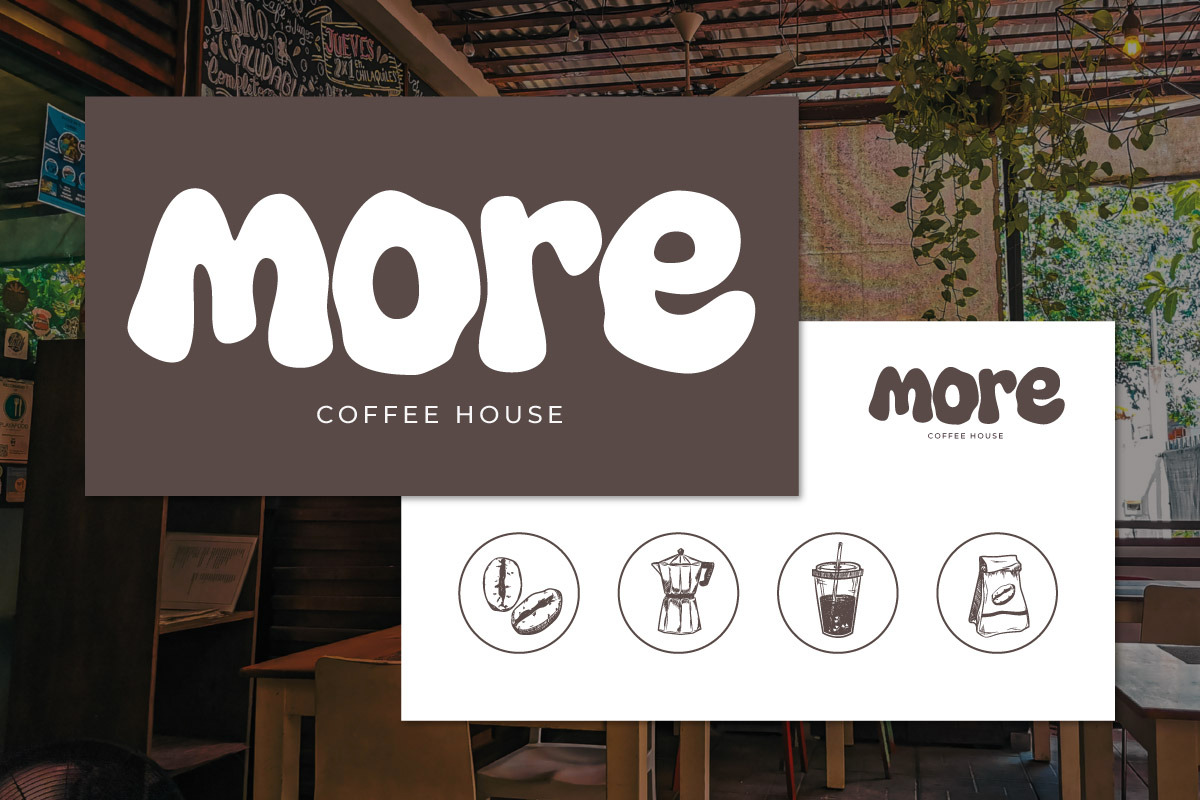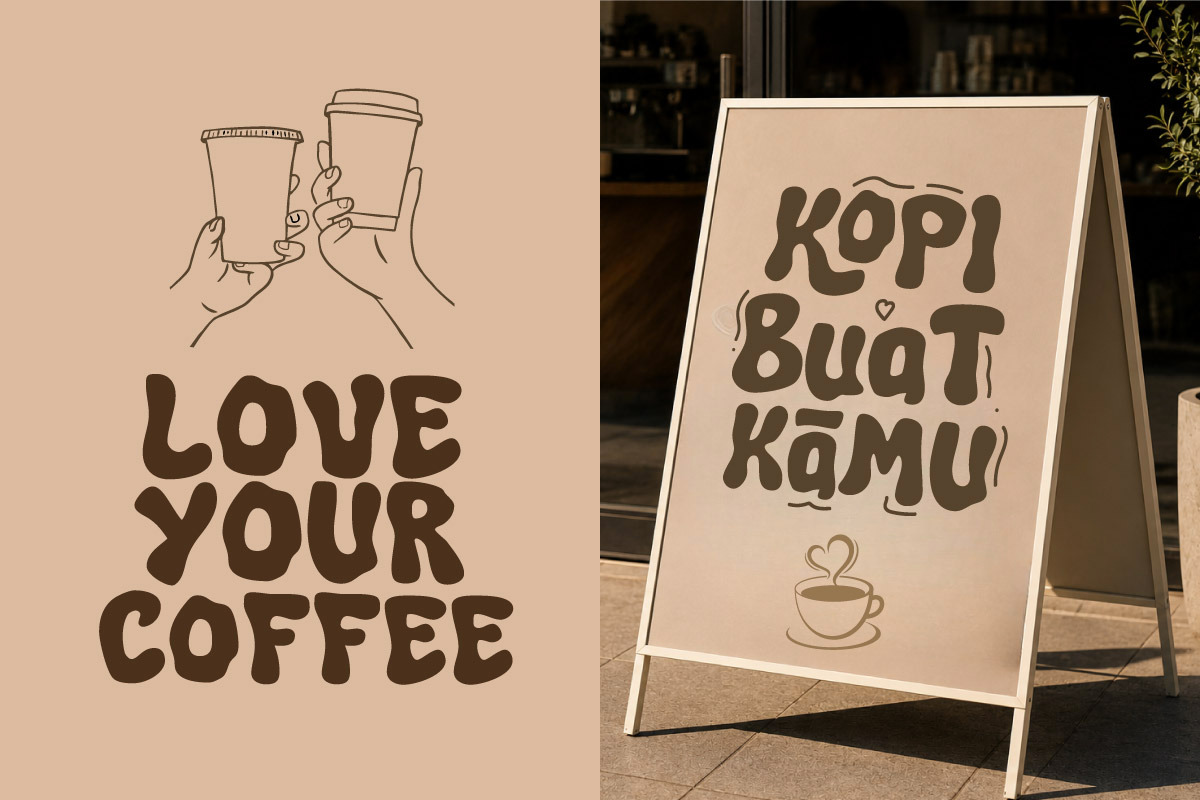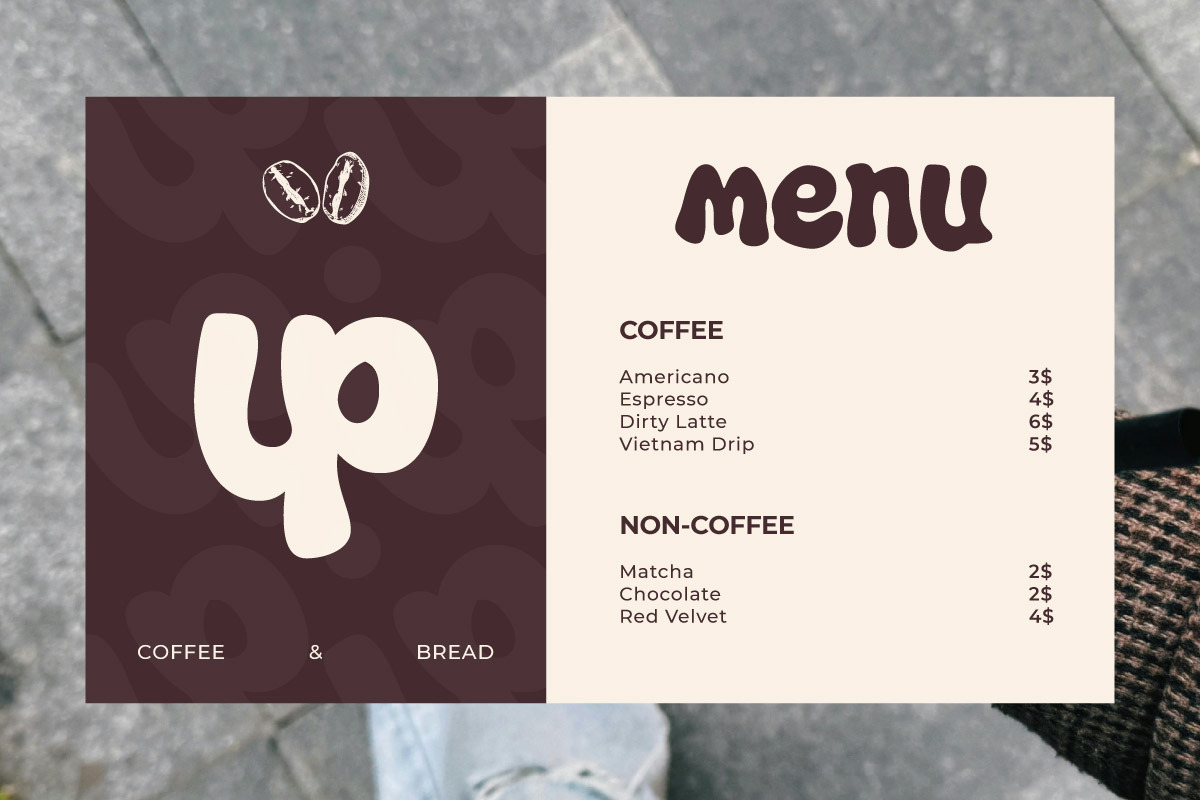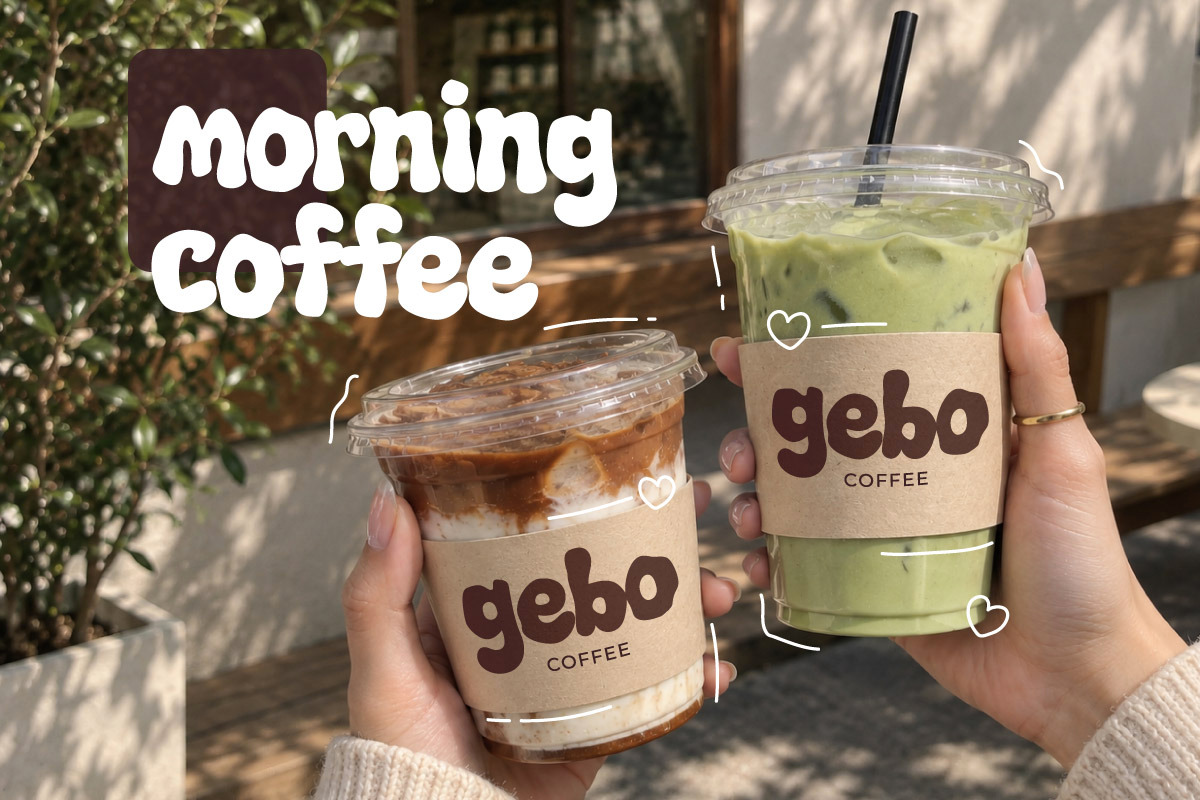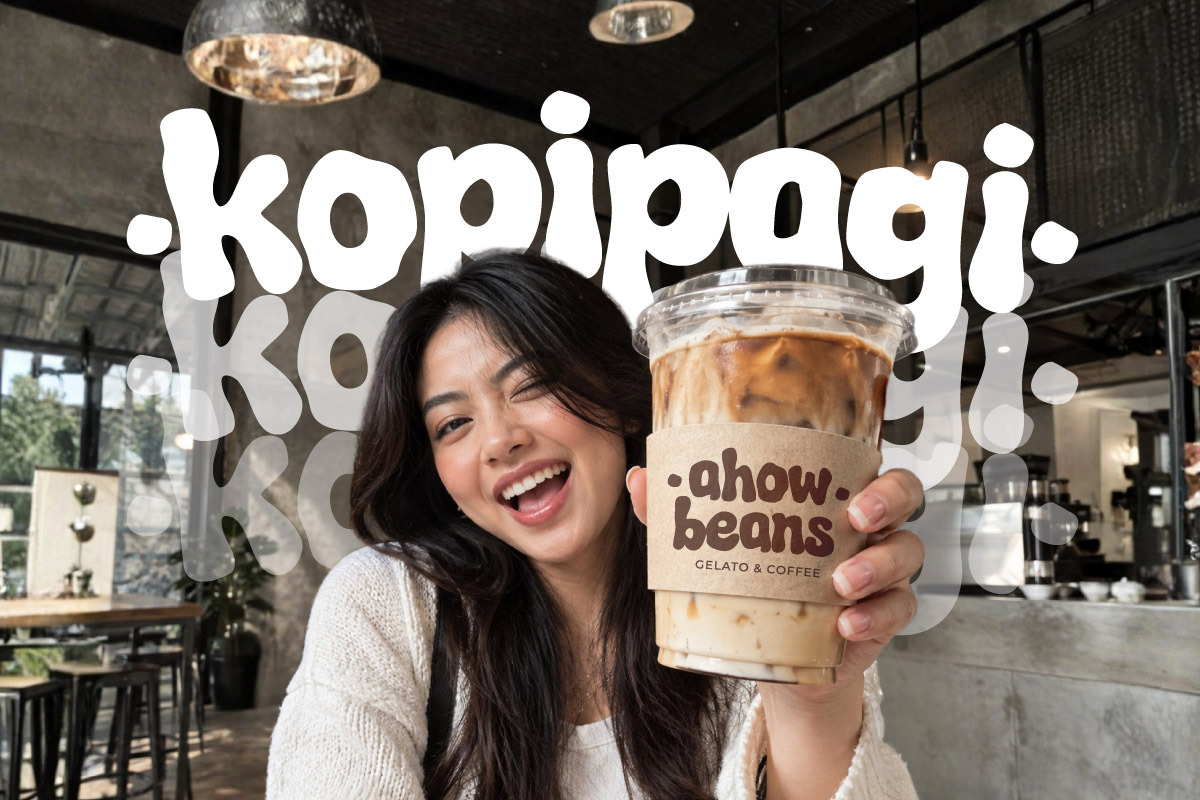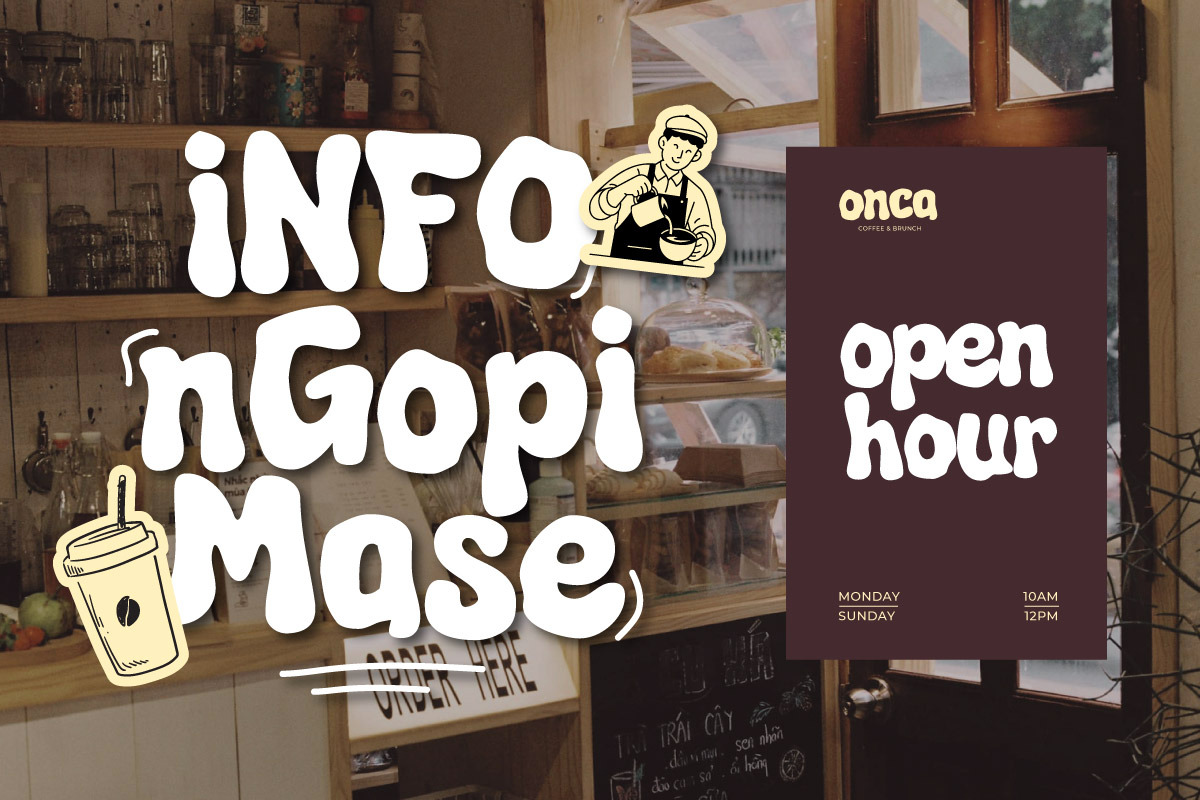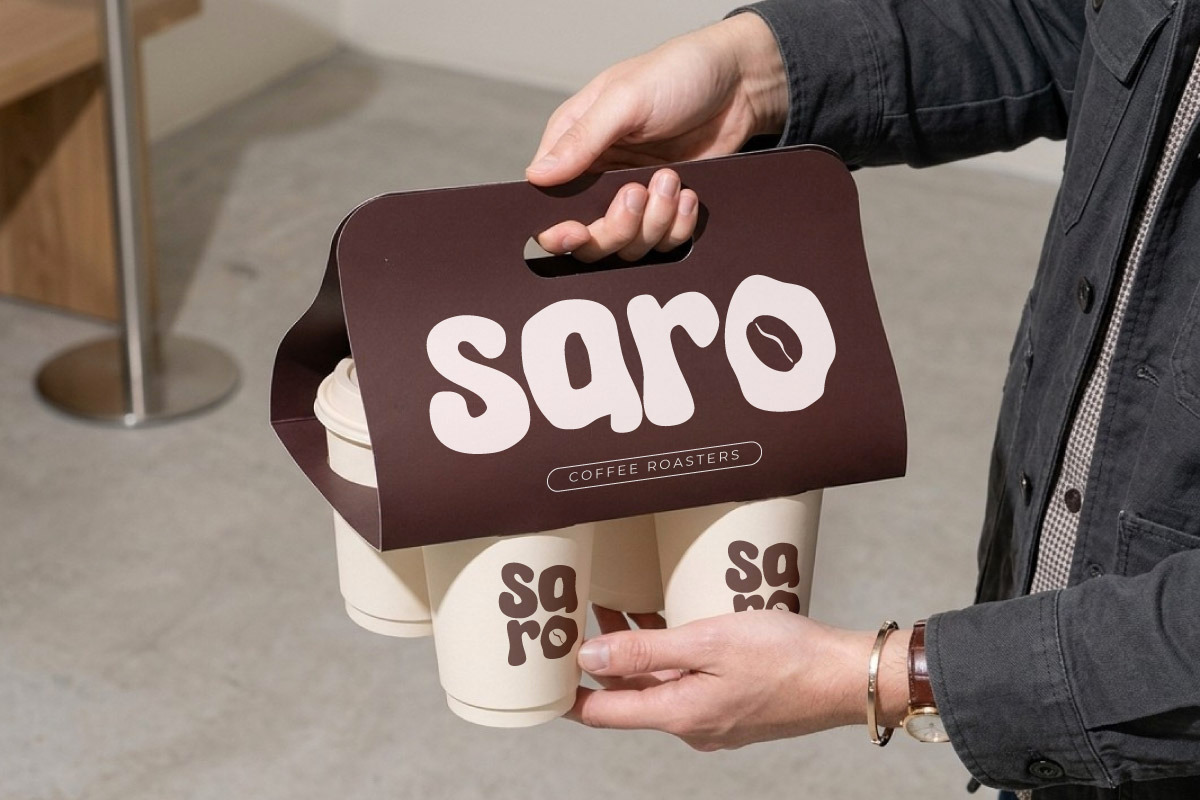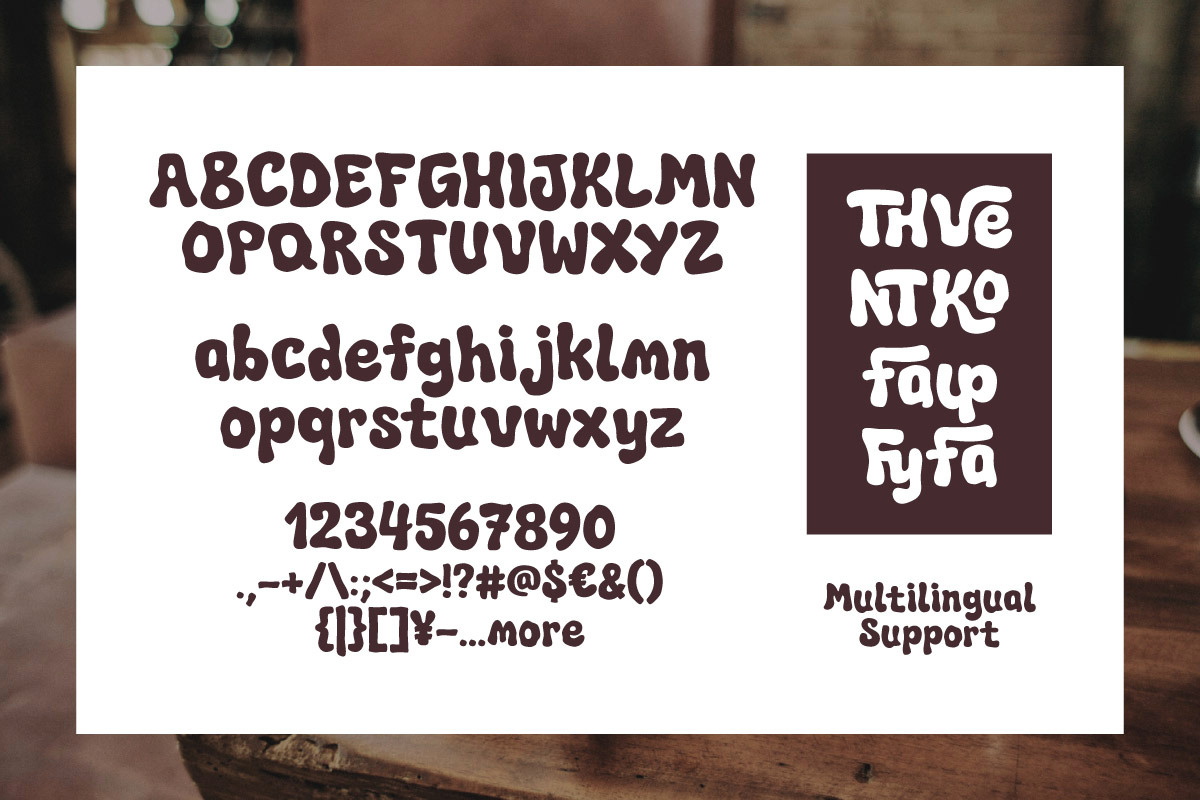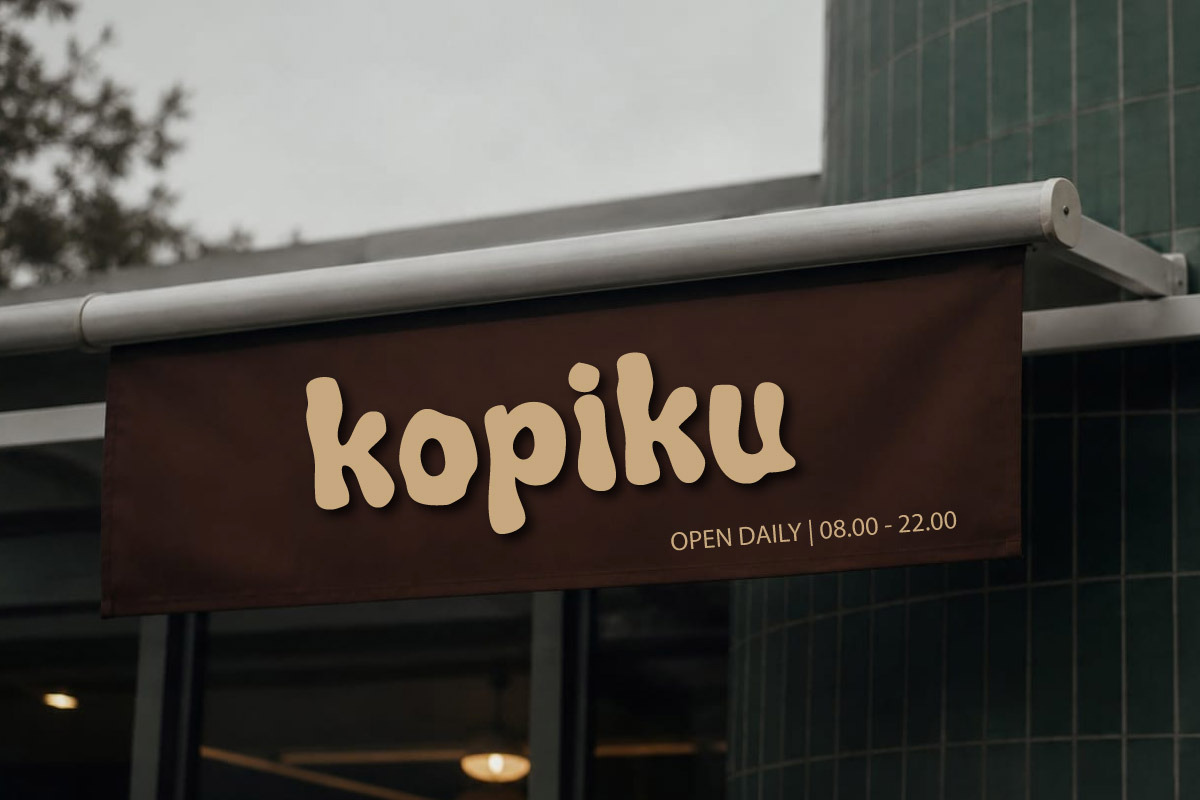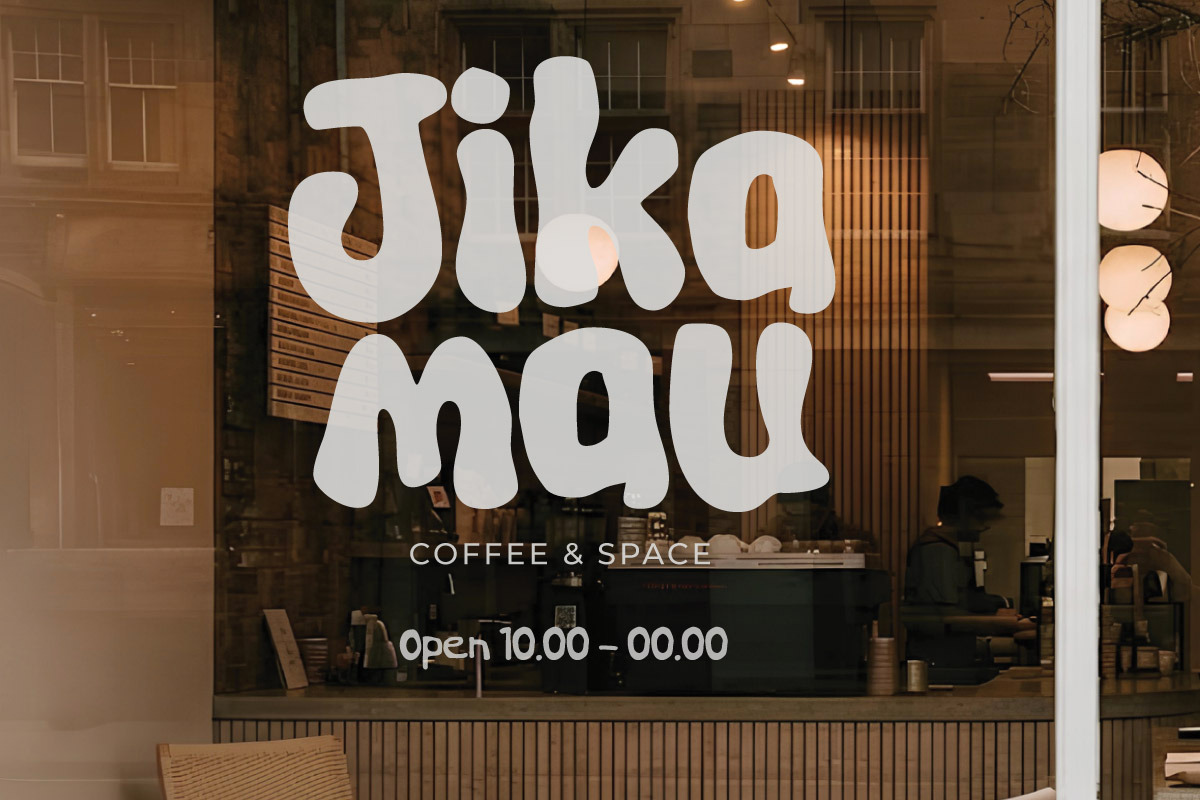
Mau Kopiga - Coffee Display Font
Mau Kopiga is a playful and friendly display font crafted to capture the cozy, welcoming essence of modern coffee shops and artisanal bakeries. Featuring thick, soft-rounded letterforms and an organic handcrafted feel, this typeface delivers an inviting visual tone for any culinary brand.
Designed with versatility in mind, Mau Kopiga excels across cafe logo designs, local roastery packaging, bakery labels, coffee cup sleeves, menu boards, and storefront window graphics. Its high visibility and warm aesthetic ensure your brand stands out effortlessly across both print and digital applications.
Complete with uppercase and lowercase letters, numbers, punctuation, and smooth curves, Mau Kopiga offers endless creative possibilities for graphic designers and business owners looking to elevate their food and beverage branding.
- Fonts include Multilingual: Support for 85 languages